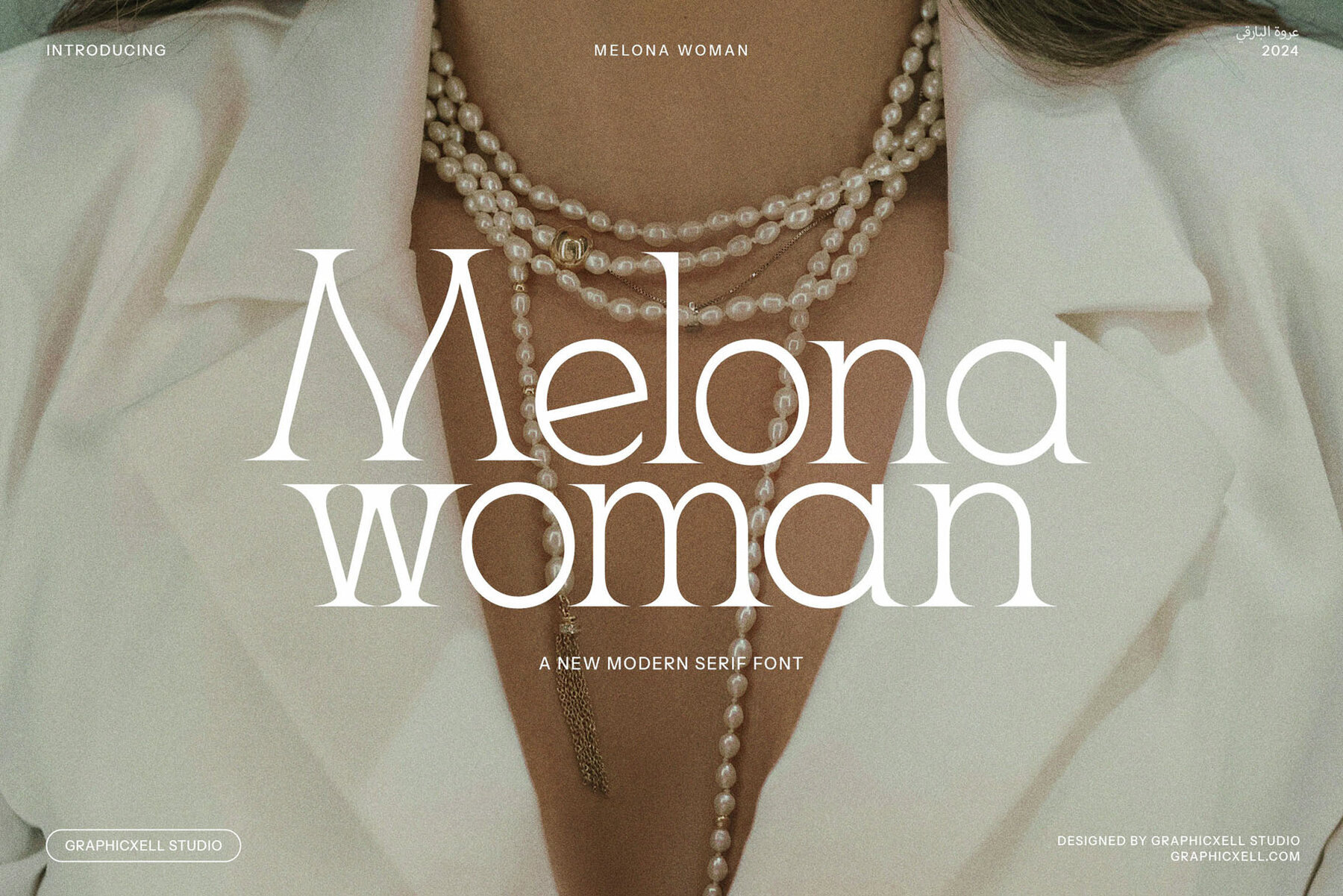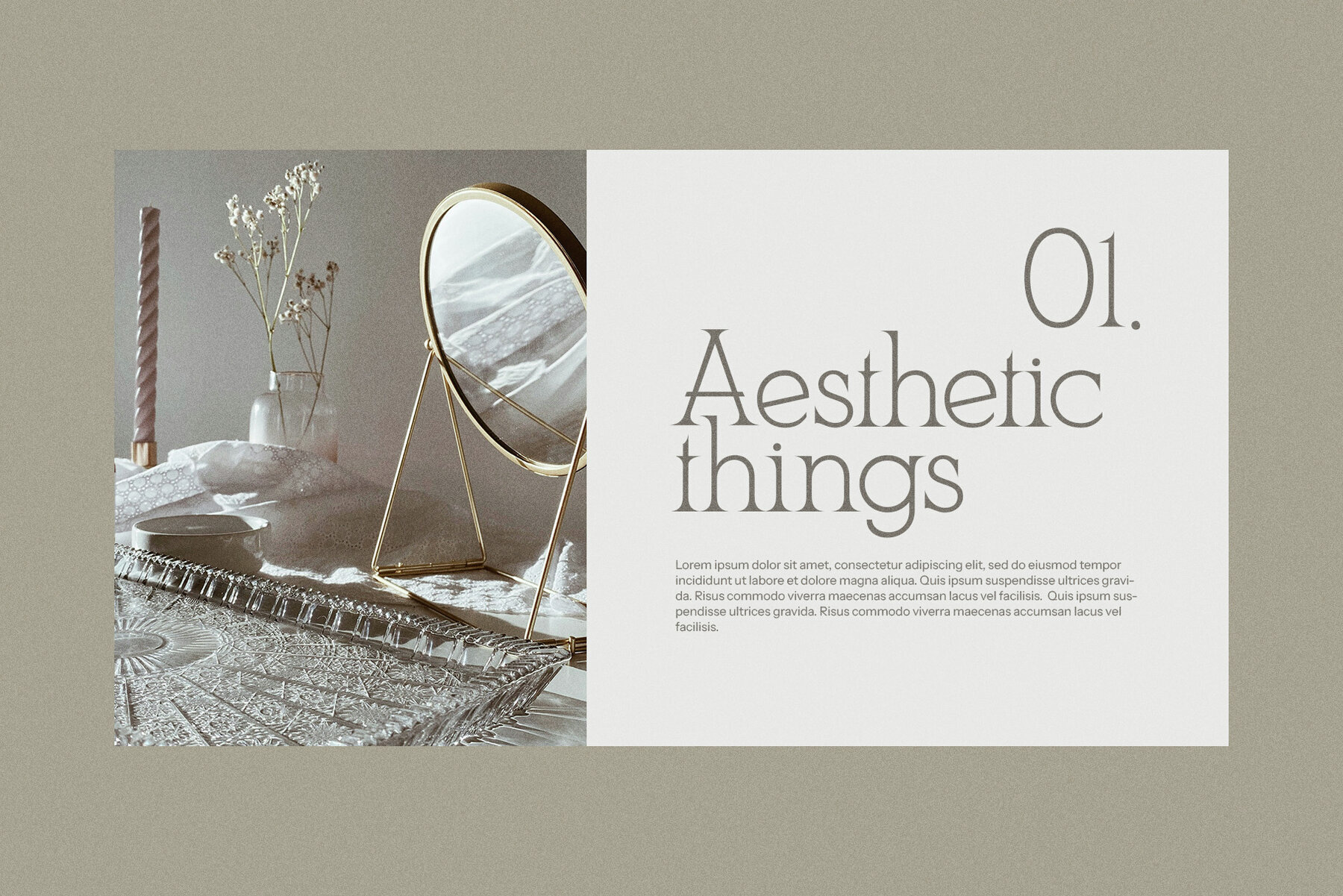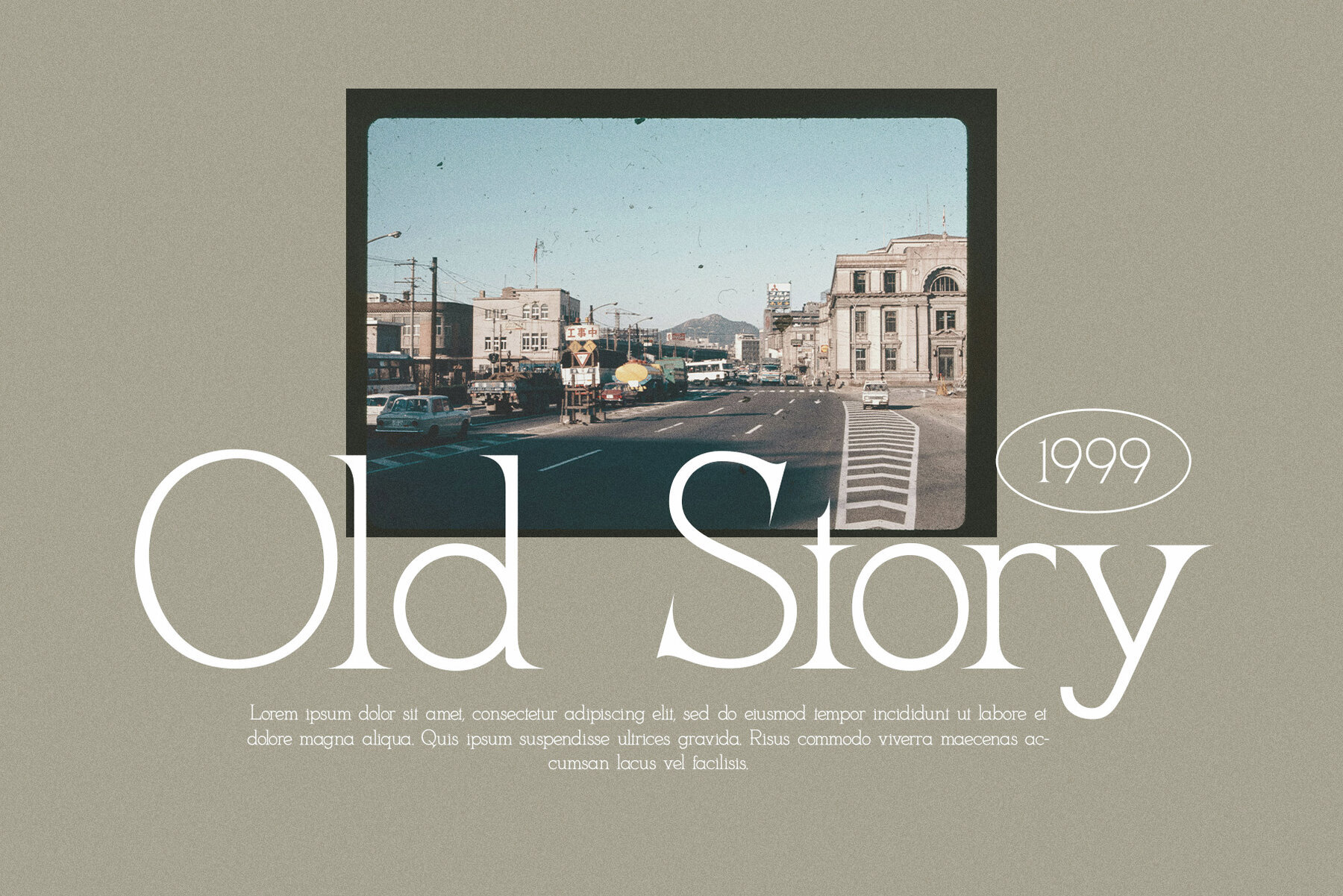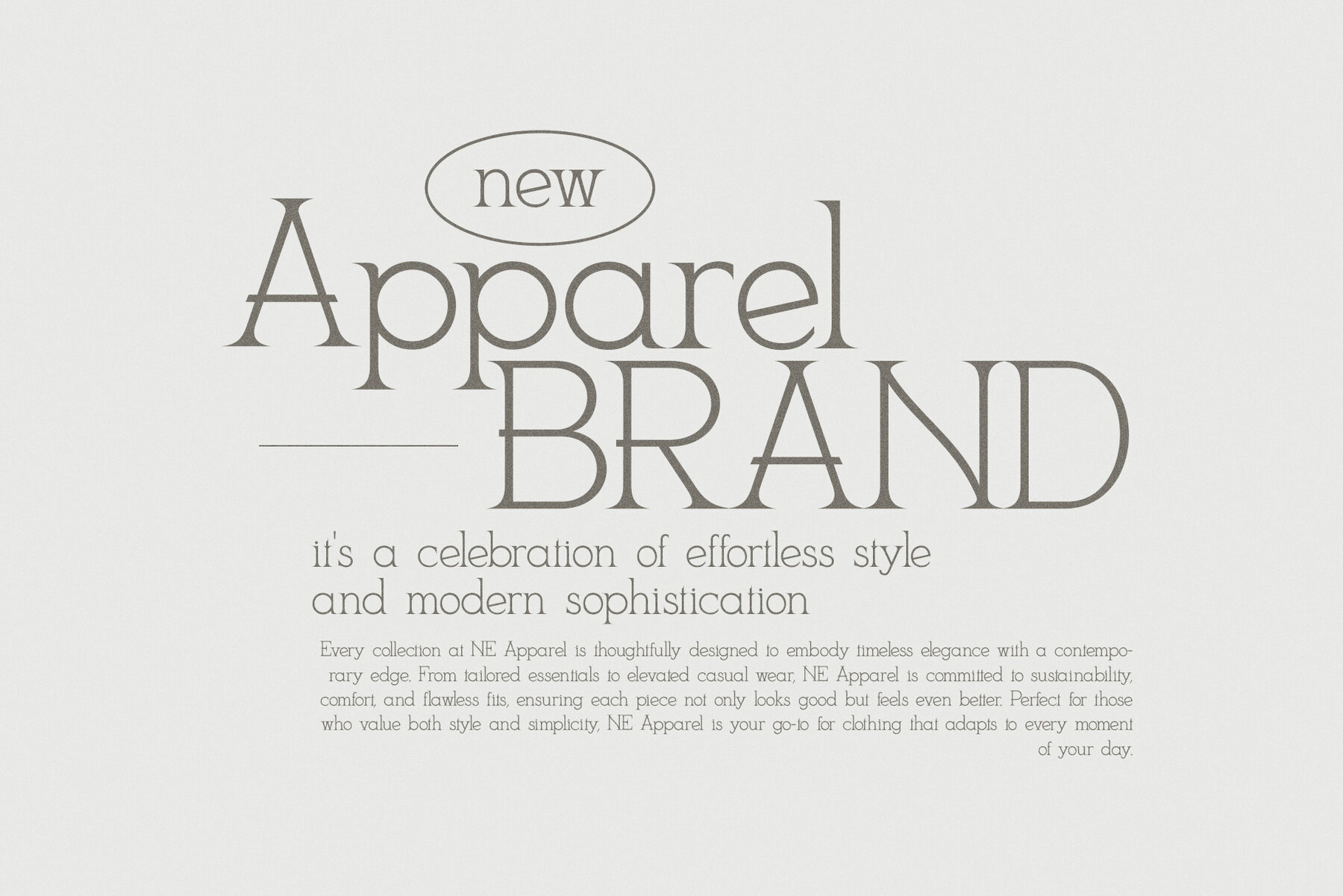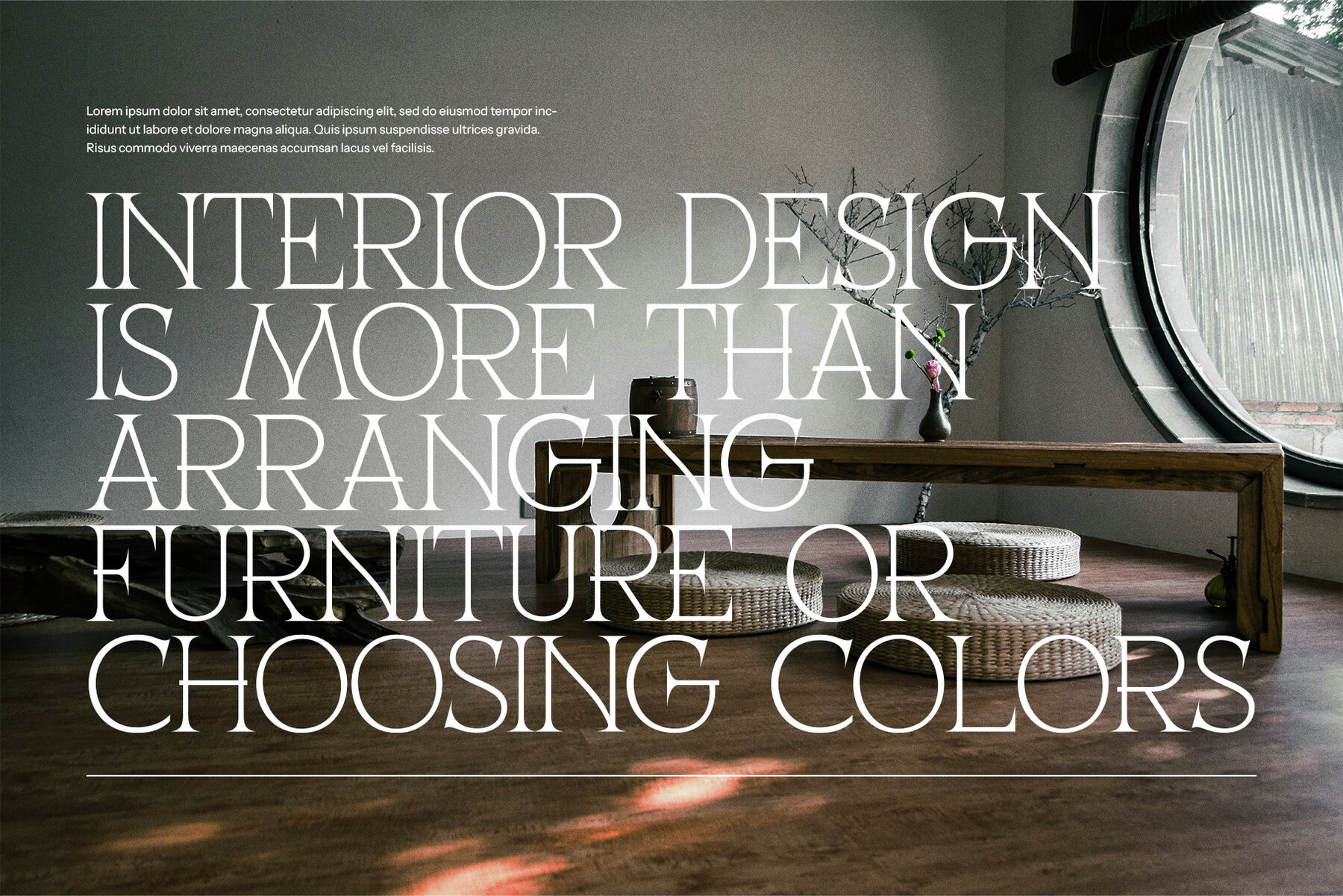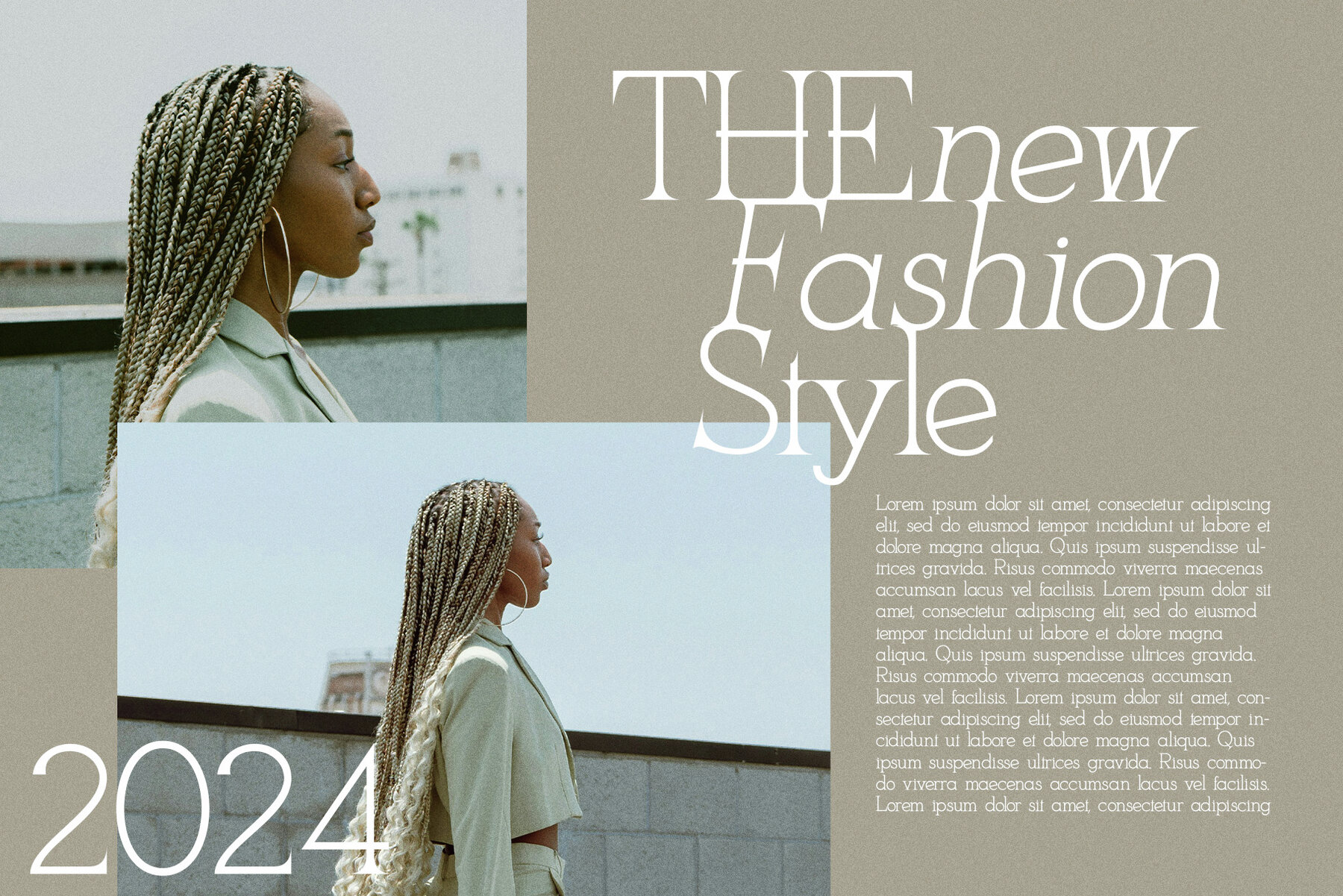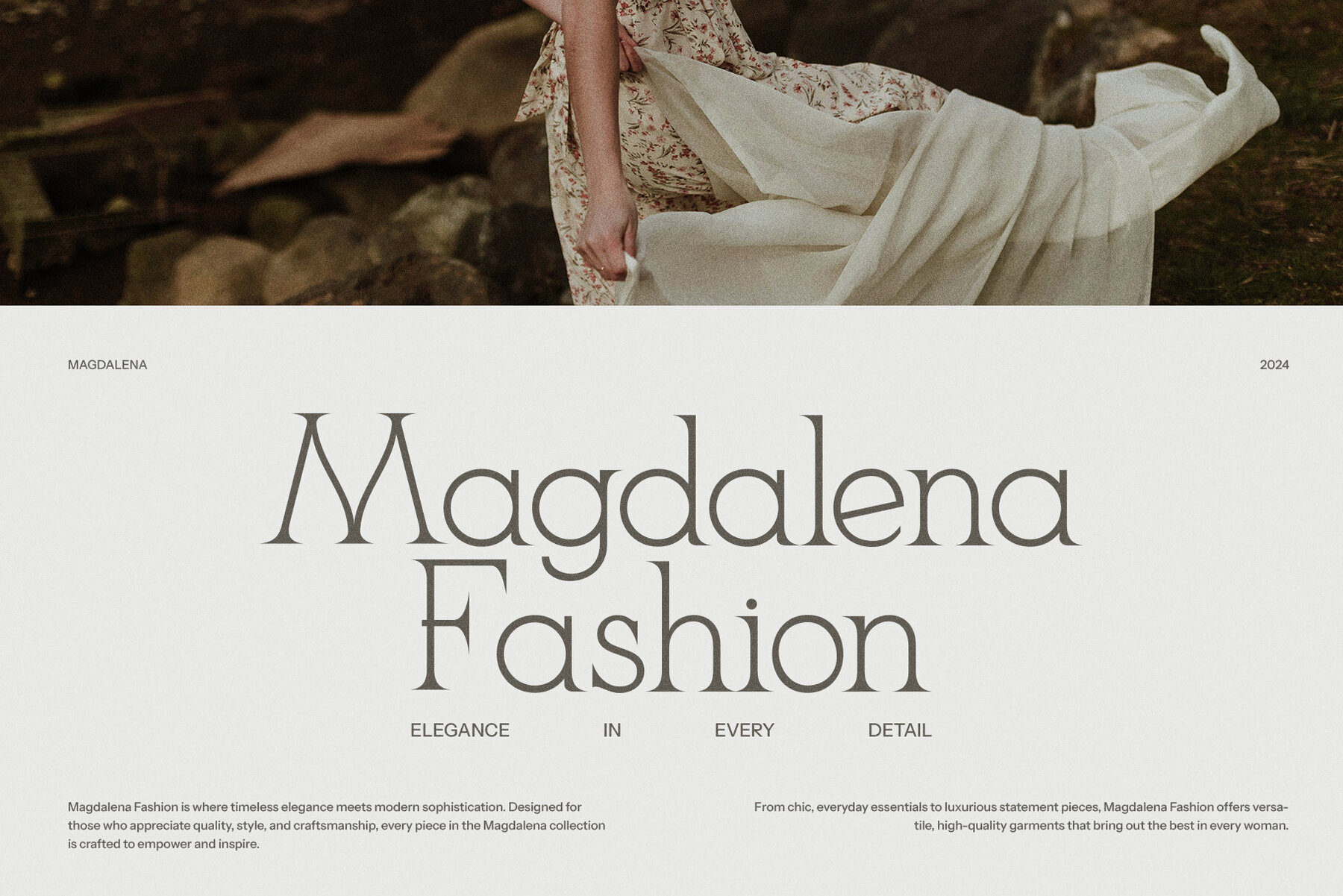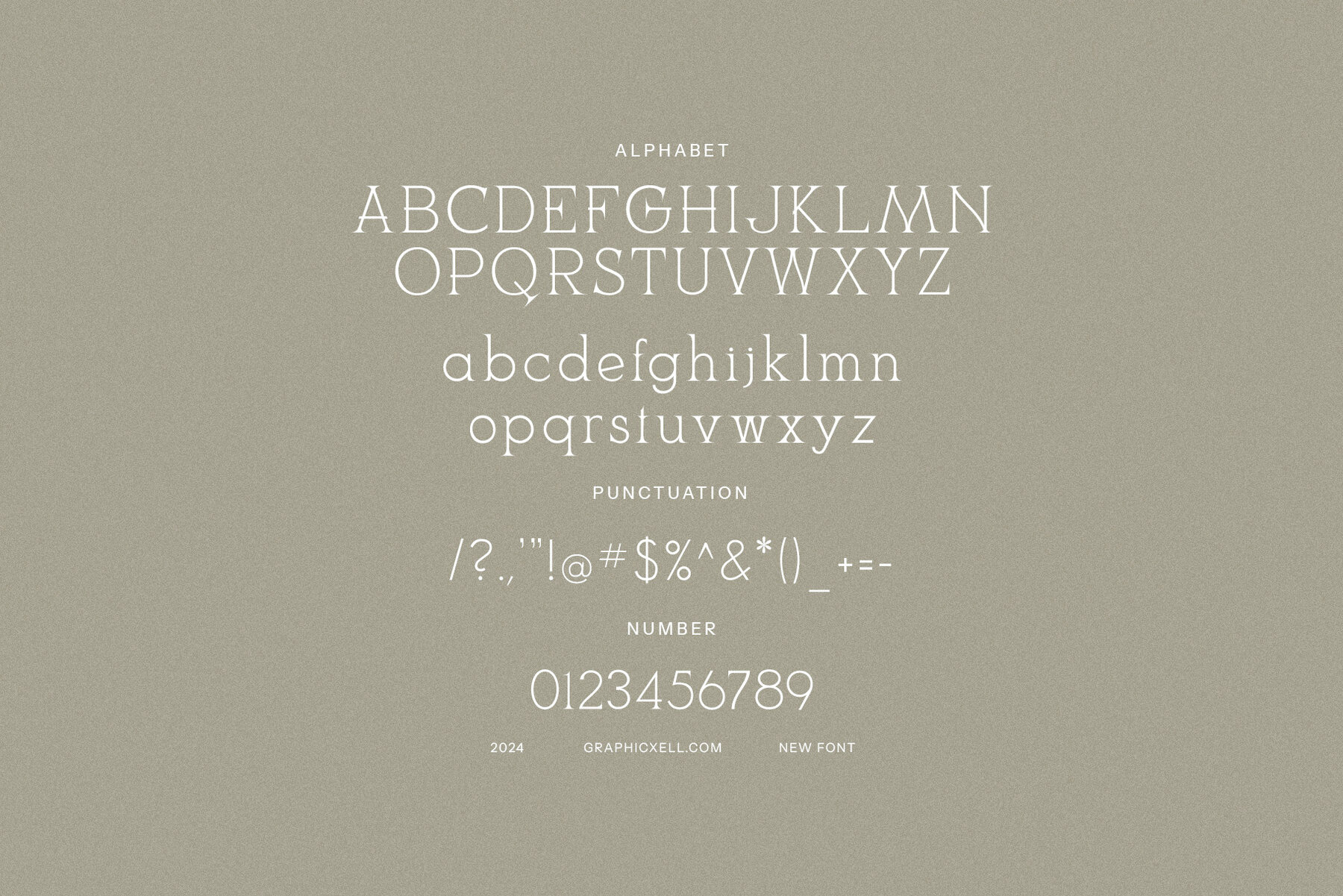
Melona Woman Font
Melona Woman
Melona Woman is a sophisticated serif font that seamlessly blends timeless elegance with vintage charm. Designed to meet the demands of contemporary branding and design, this font exudes refinement and style, making it an excellent choice for logos, branding materials, and website design. Its elegant letterforms cater to high-end projects such as boutique branding, product packaging, and fashion design. The distinctive look and graceful curves are also ideal for magazine layouts, advertisements, and editorial design, where readability and visual appeal are crucial.
The versatility of Melona Woman allows it to adapt to various design needs, from modern web designs to vintage-inspired creations. Its timeless aesthetic suits a range of industries, including beauty, food, and lifestyle. The font especially shines in high-end product branding, offering a luxurious yet accessible visual identity. Designed with beauty and functionality in mind, Melona Woman provides excellent legibility, making it perfect for both print and digital applications. Infuse your project with chic sophistication using Melona Woman for a lasting impression across modern and vintage-inspired designs.